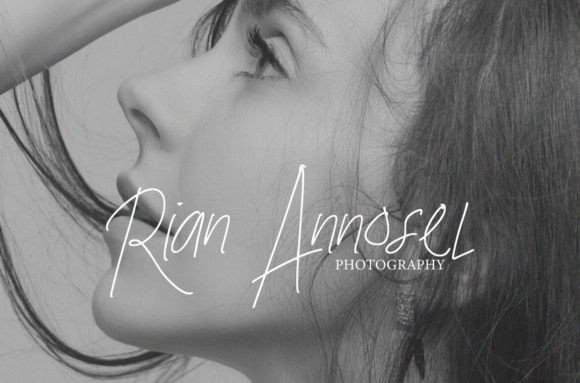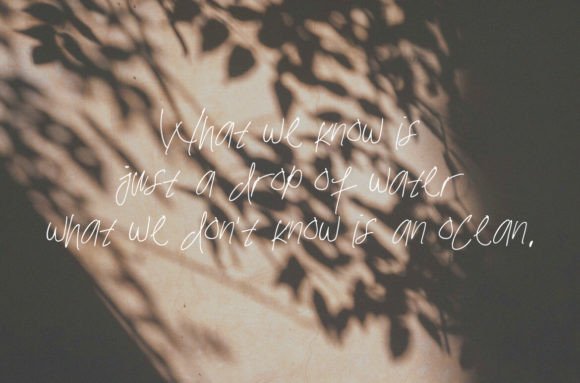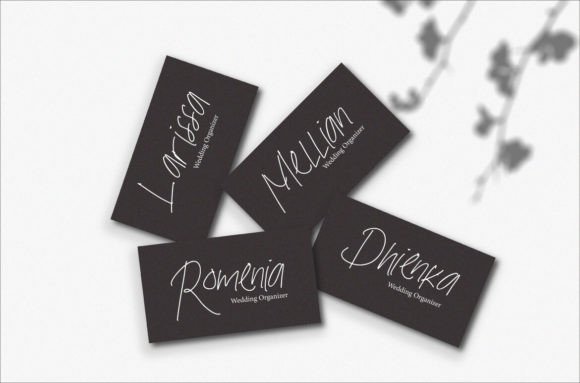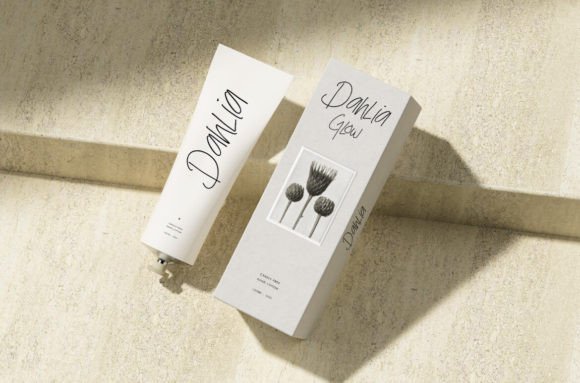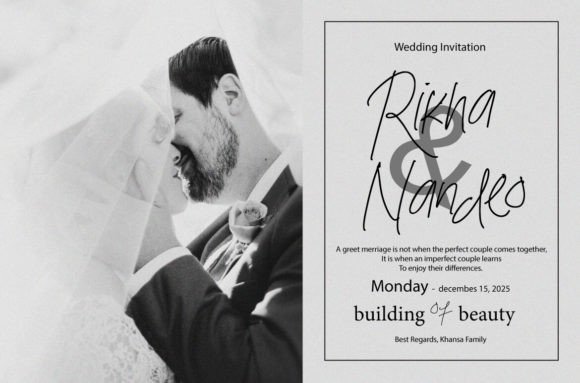
Introducing Harlind Font: Elevate Your Designs with a Touch of Elegance
Are you a designer or crafter looking for a unique and stylish font to elevate your creative projects? Look no further than Harlind Font, a beautiful signature brush font that adds a touch of handmade charm to any design. With its decorative characters, dancing baselines, and signature style, Harlind Font is perfect for creating stunning invitations, greeting cards, branding materials, business cards, quotes, posters, and more.
What Makes Harlind Font So Special?
Harlind Font is a one-of-a-kind font that boasts a range of features that set it apart from other fonts. Here are just a few reasons why Harlind Font is a must-have for designers and crafters:
- Handmade Signature Style: Harlind Font has a beautiful, handmade signature style that adds a personal touch to any design. Its unique and elegant feel makes it perfect for creating sophisticated and eye-catching designs.
- Decorative Characters: Harlind Font features decorative characters that add an extra layer of flair to your designs. From intricate swashes to beautiful flourishes, Harlind Font’s decorative characters are sure to impress.
- Dancing Baselines: One of the most distinctive features of Harlind Font is its dancing baselines. This means that the font has a natural, fluid feel that gives your designs a sense of movement and energy.
Perfect for a Range of Design Projects
Harlind Font is incredibly versatile and can be used for a wide range of design projects. Here are just a few ideas to get you started:
- Invitations: Whether you’re planning a wedding, birthday party, or other special occasion, Harlind Font is perfect for creating beautiful and elegant invitations.
- Greeting Cards: Add a touch of personality to your greeting cards with Harlind Font. Its handmade style and decorative characters make it perfect for creating unique and heartfelt cards.
- Branding Materials: Harlind Font is also great for creating branding materials such as logos, business cards, and letterheads. Its sophisticated feel makes it perfect for businesses looking to create a professional and elegant brand identity.
- Quotes and Posters: Use Harlind Font to create stunning quotes and posters that are sure to grab attention. Its decorative characters and dancing baselines make it perfect for creating eye-catching designs.
Tips for Using Harlind Font
Here are a few tips for getting the most out of Harlind Font:
- Experiment with Different Sizes: Harlind Font looks great in a range of sizes, from small and delicate to large and bold. Experiment with different sizes to find the one that works best for your design.
- Play with Color: Harlind Font is perfect for use with a range of colors. Try pairing it with bold and bright colors for a fun and playful look, or with more muted tones for a sophisticated feel.
- Mix and Match with Other Fonts: Harlind Font is a great font to use in combination with other fonts. Try pairing it with a simple sans-serif font for a striking contrast.
Harlind Font is a beautiful and versatile font that is perfect for designers and crafters looking to add a touch of elegance to their designs. With its handmade signature style, decorative characters, and dancing baselines, Harlind Font is sure to impress. Whether you’re creating invitations, greeting cards, branding materials, or quotes and posters, Harlind Font is the perfect choice. So why wait? Download Harlind Font today and start elevating your designs to the next level!